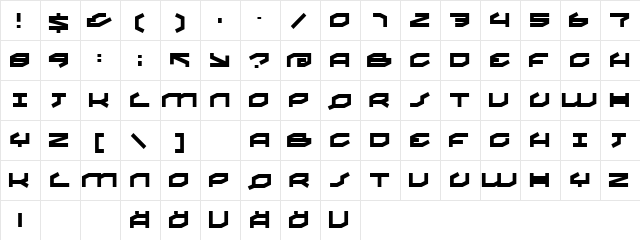
tricky Regular Font Preview
tricky Regular
tricky Regular Font Details
Design Context for tricky Typeface
tricky is a composed and adaptable typeface that performs quietly and consistently across a wide range of design contexts.